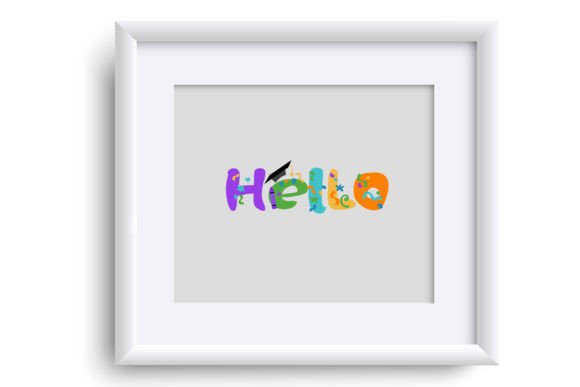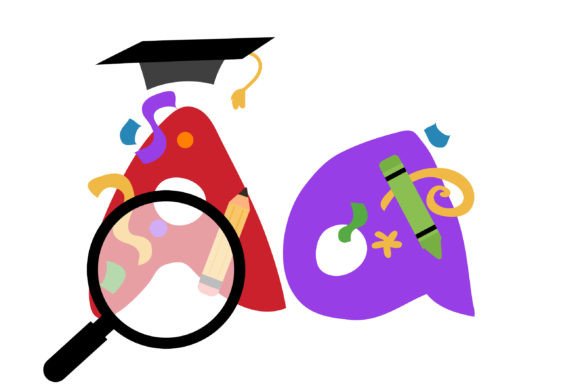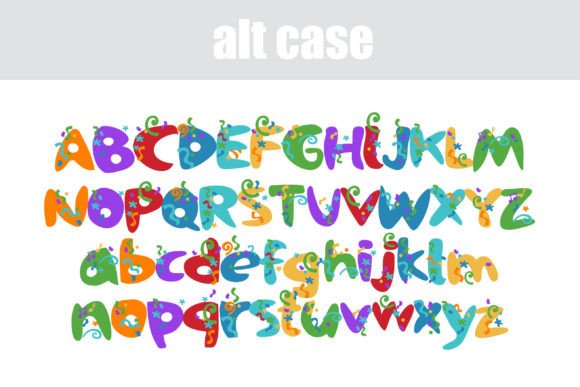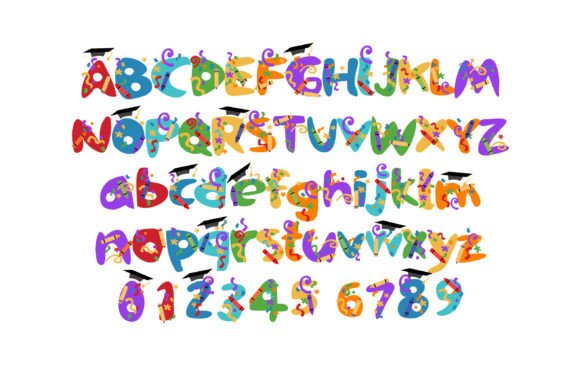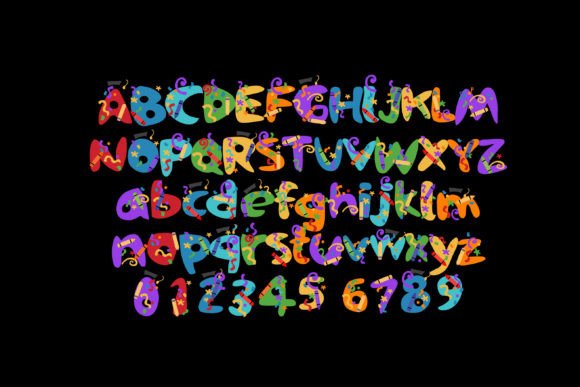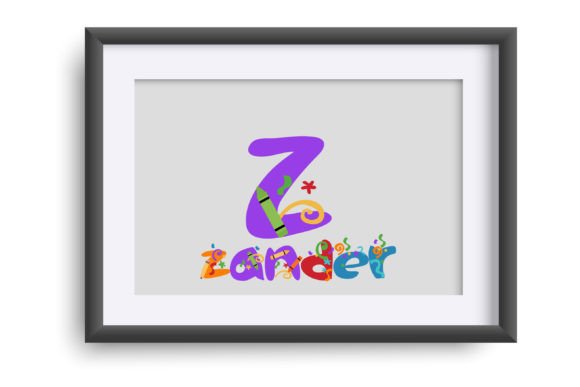
Introduction to School’s out Celebratory Font
Do you remember the feeling of excitement and relief when the final bell rang, signaling the end of another school year? The rush of creativity that followed, as you gathered with friends to celebrate the freedom and adventure that summer held? That same feeling is what inspired the creation of the School’s out Celebratory Font, a vibrant and playful typeface that’s perfect for any creative project.
As a designer, you’re always on the lookout for high-quality design resources that will help bring your ideas to life. The School’s out Celebratory Font is a valuable addition to your toolkit, offering a free download that’s bursting with color and energy. Whether you’re working on a poster, display, or other creative project, this font is sure to add a touch of whimsy and fun.
With its transparent background and versatile design, the School’s out Celebratory Font is the perfect design resource for any occasion. From graduations to summer camps, this font is sure to make a statement and add a pop of color to your designs.
Key Features of School’s out Celebratory Font
- High-quality design: This font is specifically crafted for creative projects that demand attention and style, making it perfect for your summer-themed designs.
- Transparent background: The transparent background of this font allows for seamless integration with your design, giving you complete control over the look and feel of your project.
- Unique characteristics: The School’s out Celebratory Font features bold and playful lettering, complete with intricate details and flourishes that add a touch of whimsy to your designs.
- Perfect for summer-themed designs: Whether you’re creating invitations, posters, or social media graphics, this font is sure to add a celebratory touch to your creative project.
Honest Review: School’s out Celebratory Font
I recently stumbled upon the School’s out Celebratory Font and was excited to give it a try for my latest creative project. As a designer, I appreciate high-quality fonts that can elevate a design and make it truly special. This font definitely delivers.
- ✨ Great for celebrations: This font is perfect for school-themed projects, graduation parties, or any other celebration that requires a fun and playful vibe.
- ✨ Transparent background: The font has a transparent background, allowing you to easily combine it with other design elements and create a cohesive look.
While the School’s out Celebratory Font is overall a great addition to any design collection, there are a few limitations to consider:
- ⚠️ Limited style options: The font is quite straightforward and doesn’t offer a lot of variations or style options, which might limit its creative potential.
- ⚠️ Not ideal for formal projects: Due to its playful nature, this font might not be the best choice for formal or professional projects, where a more serious tone is required.
Overall, I’m quite impressed with the School’s out Celebratory Font and would definitely recommend it for any fun and creative projects. With its high quality and ease of use, it’s a great design resource to have in your collection.